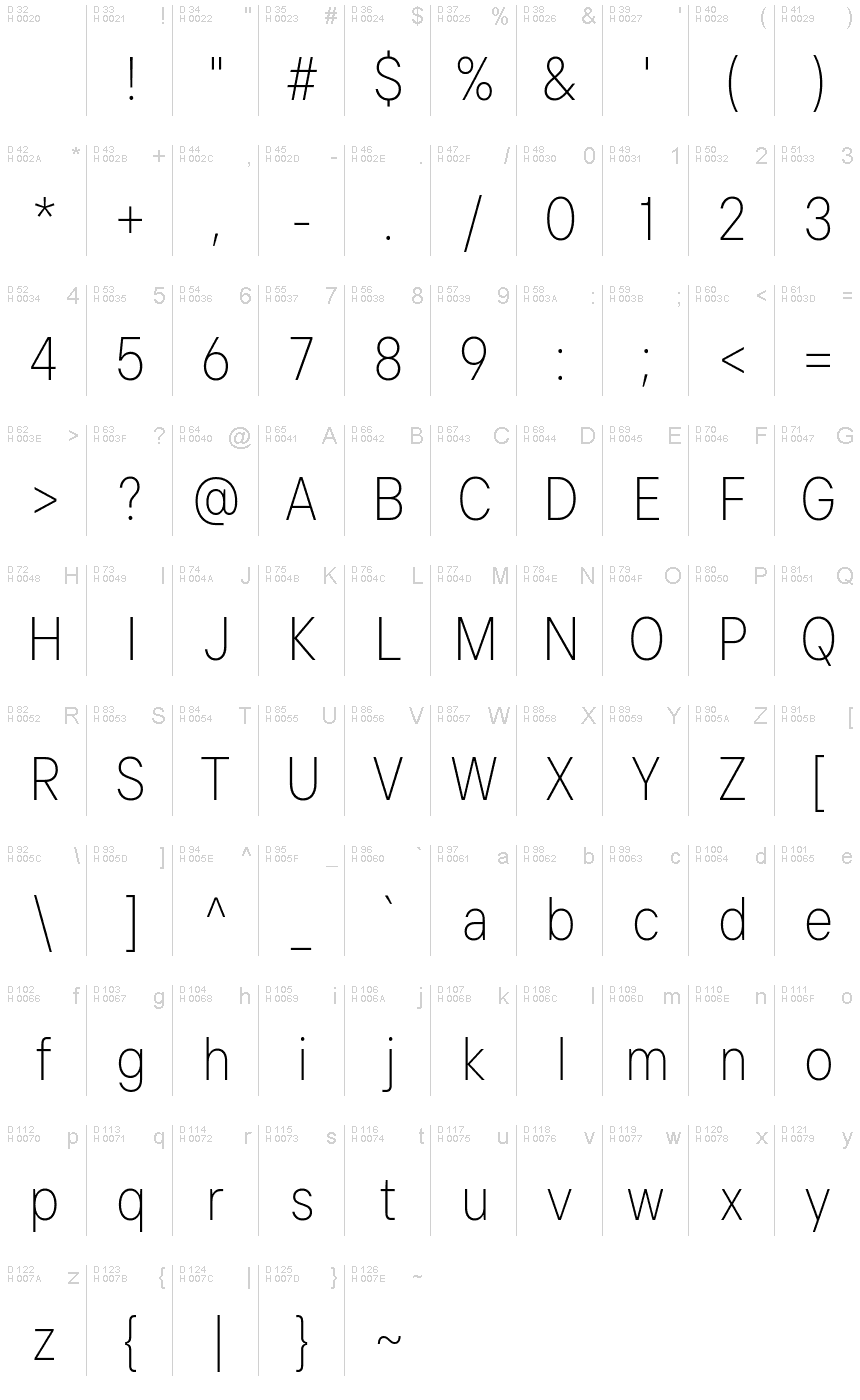
TT Intrphss Pr Trl Cnd XLt
TT Interphases Pro Cnd XLt is a sleek and sophisticated sans serif font designed by TypeType Foundry. With its extra-light weight and condensed width, this font exudes an air of elegance and modernity.
Its clean lines and minimalistic style make it perfect for a wide range of projects. Whether you're designing a minimalist logo, creating eye-catching headlines, or crafting stylish invitations, TT Interphases Pro Cnd XLt adds a touch of refinement to any design.
Elevate your brand with this versatile font that effortlessly combines simplicity and sophistication.